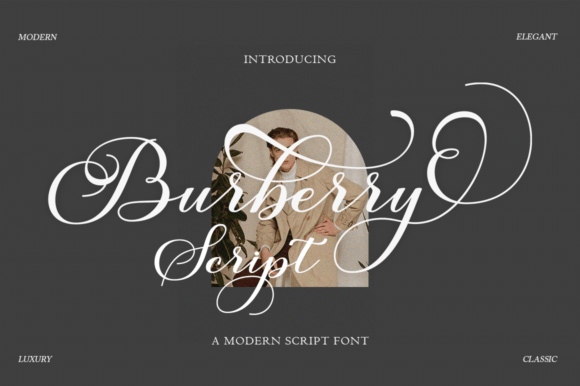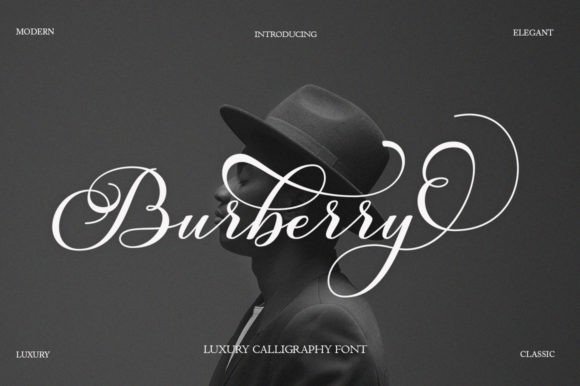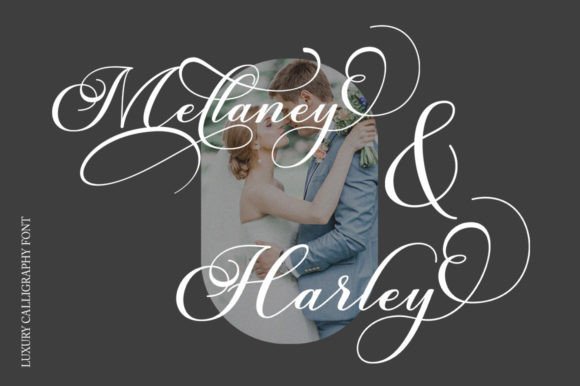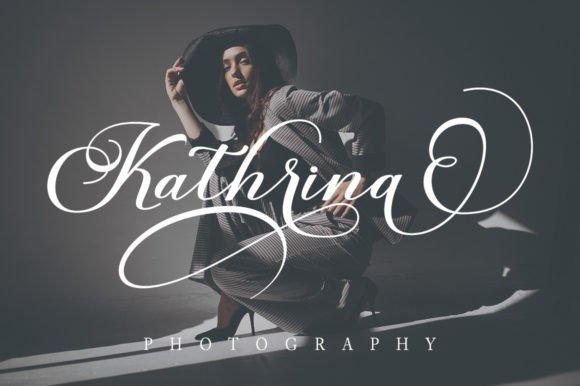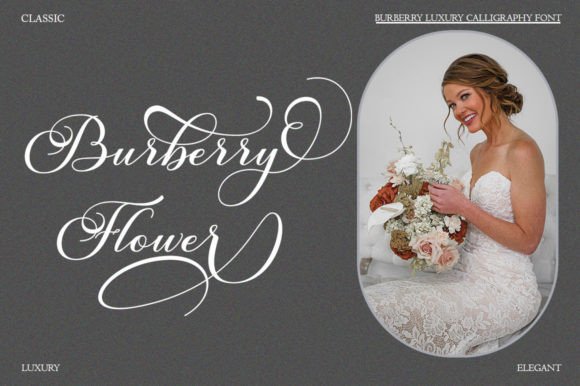
Burberry Script
About Burberry Script
Burberry Script is a dazzling script font. This font is neatly crafted and highly detailed. Whatever the topic, this font will be a wonderful asset to your font library, as it has the potential to enhance any creation. Burberry Script is PUA encoded which means you can access all the glyphs and ligatures with ease!